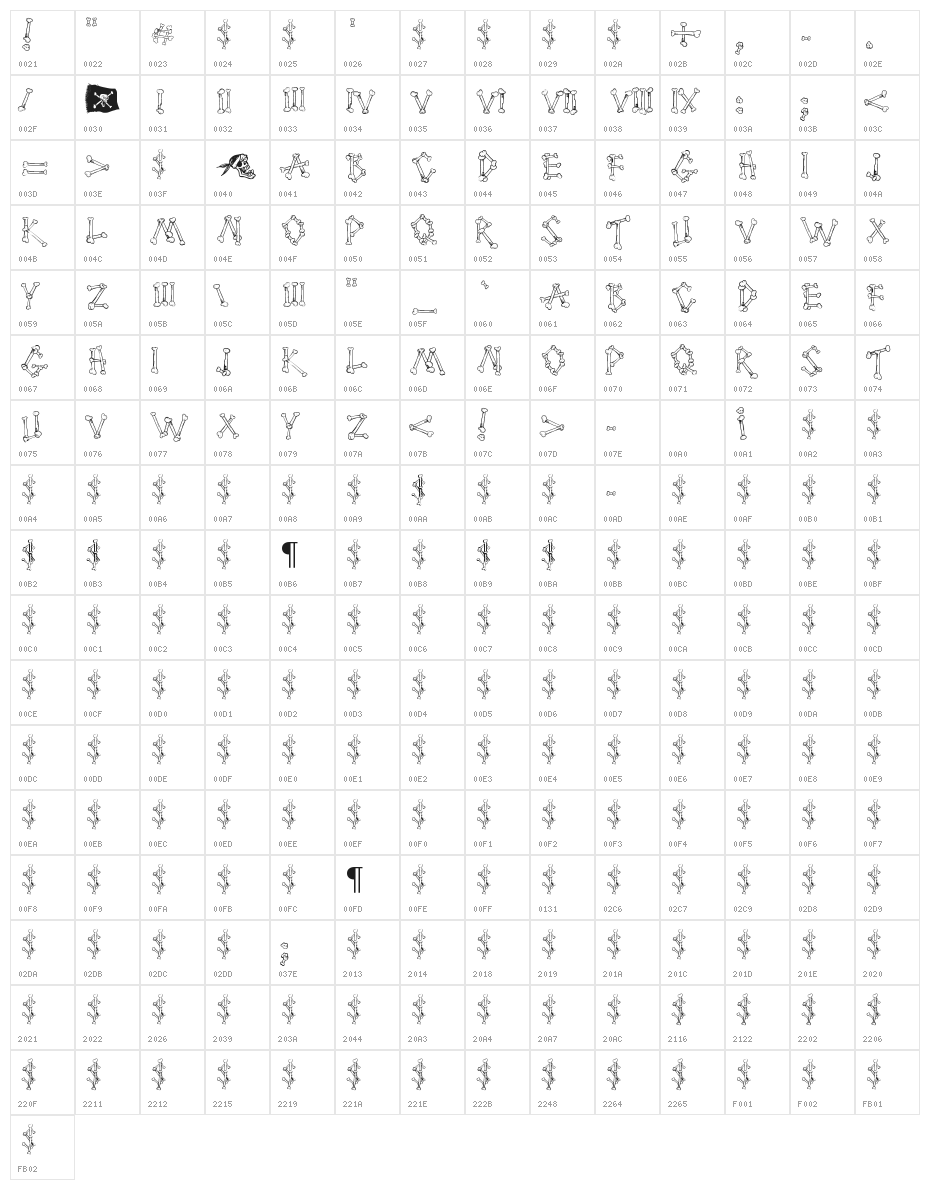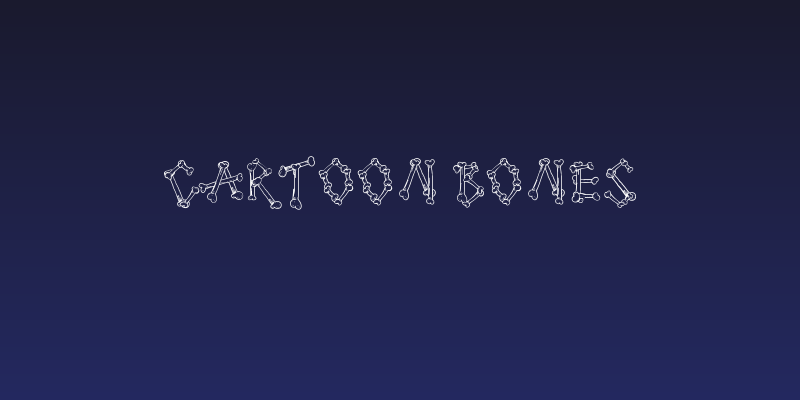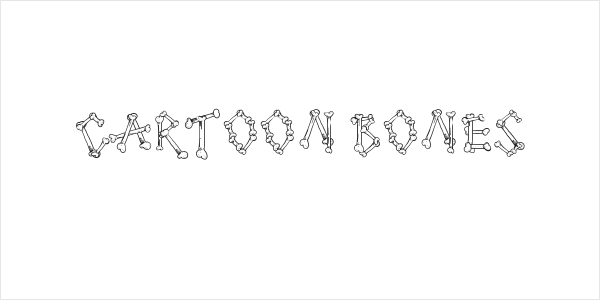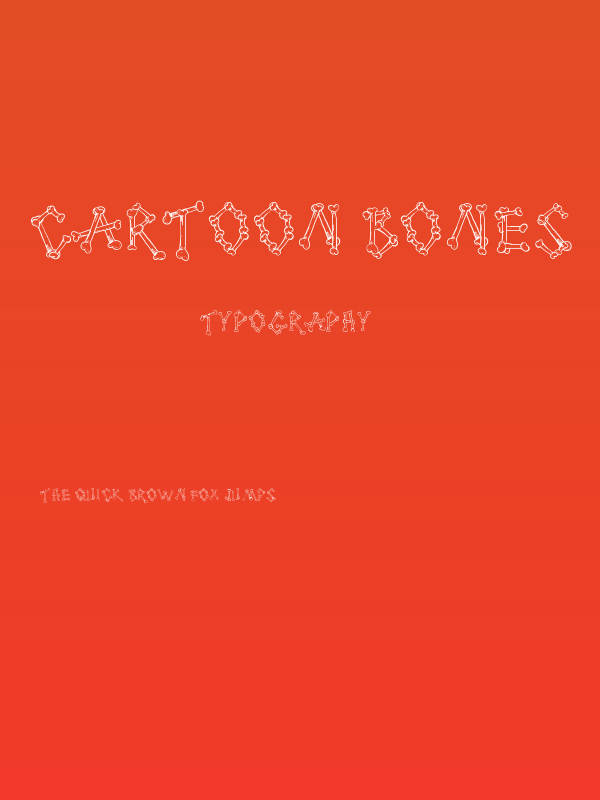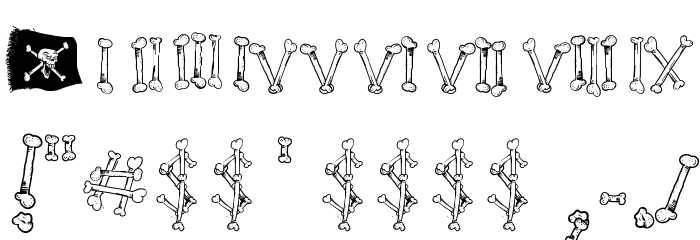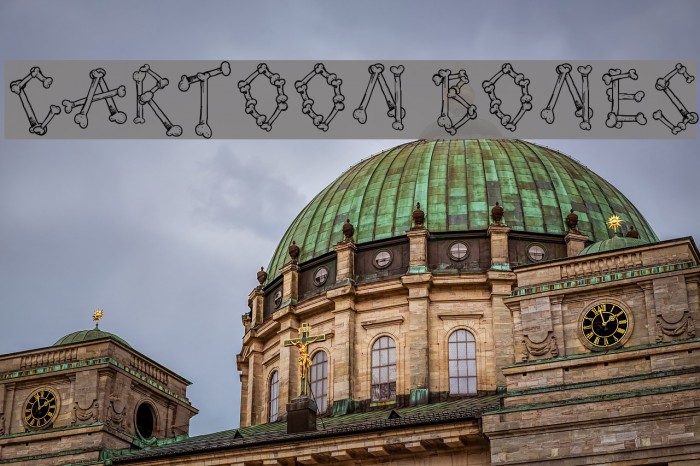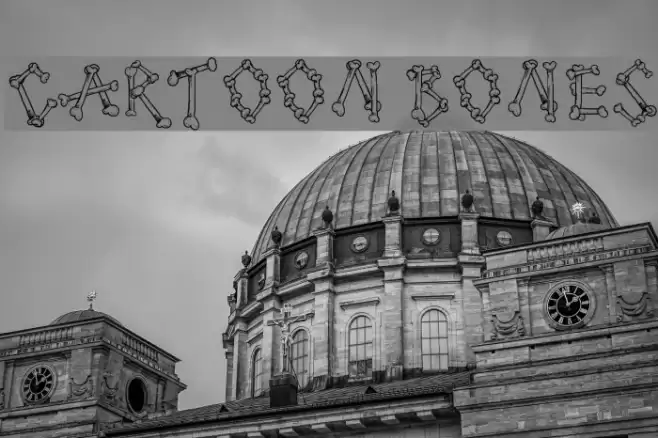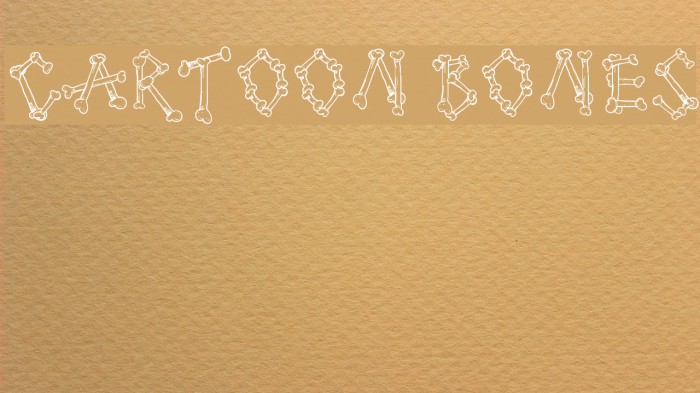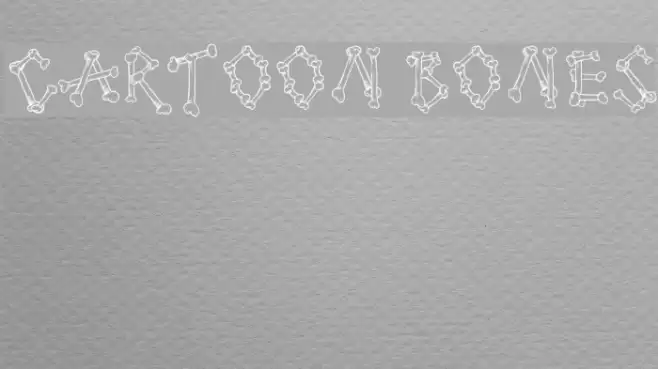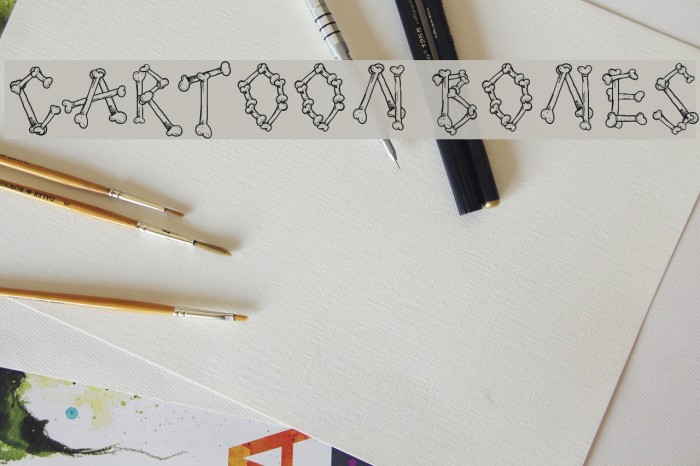
Cartoon Bones Font
✎ Decorative
| Estilo general | Whimsical |
| Caso de uso | Headlines, Logos, Themed Events |
| Proyectos propuestos | Ideal for Halloween decorations, pirate-themed invitations, children's party banners, and playful graphic designs. |